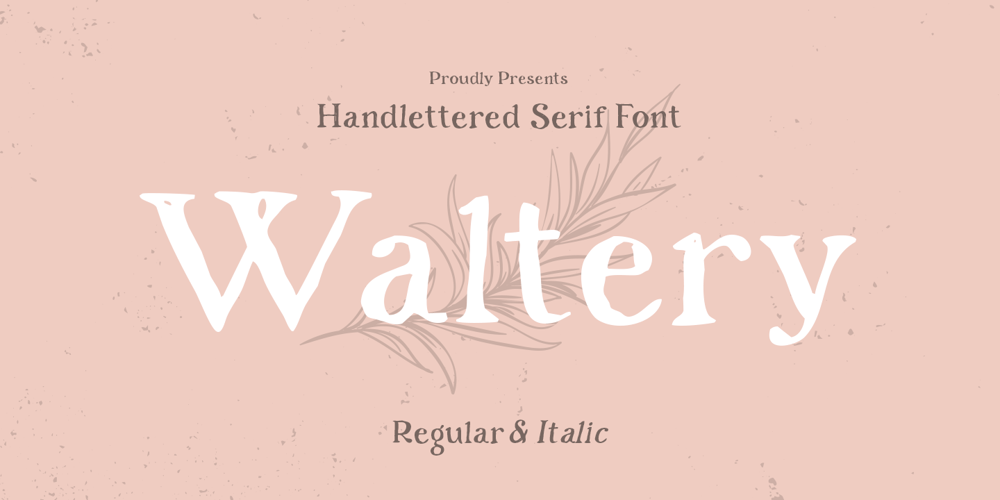
Waltery Font Family was designed by Zamroni Hamzah and published by Sensatype Studio. Waltery contains 2 styles and family package options. Waltery is a hand-lettered cute font for brand, logo and quotes design.Based on our experience as a graphic designer who works for a lot of companies, we often are requested to design a logo in a unique style but with an cute hand-drawn shape. So, we try to brainstorming and create this font to make the idea is going out. This is perfect for BRANDING and LOGO DESIGN. You will get outstanding, cute, and certainly unique logos with this font.Waltery is also included full set of: uppercase and lowercase letters multilingual characters numerals punctuationWhat will you get? Waltery-Regular Waltery-Italic Wish you enjoy our font. ๐